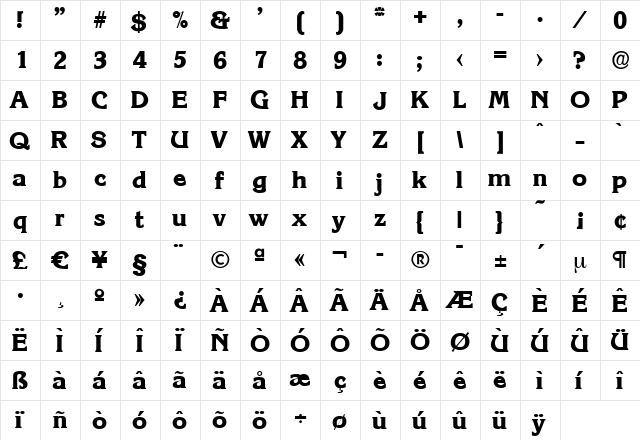
AlanBecker-ExtraBold Regular
Design Context for AlanBecker-ExtraBold Typeface
AlanBecker-ExtraBold offers clean, dependable letterforms without strong stylistic allegiance, making it a practical choice for designers who need flexibility. Its bold stroke weight gives it real presence on the page.
Pro Tip: Pair AlanBecker-ExtraBold with a font of contrasting weight or personality to build a more expressive typographic hierarchy.